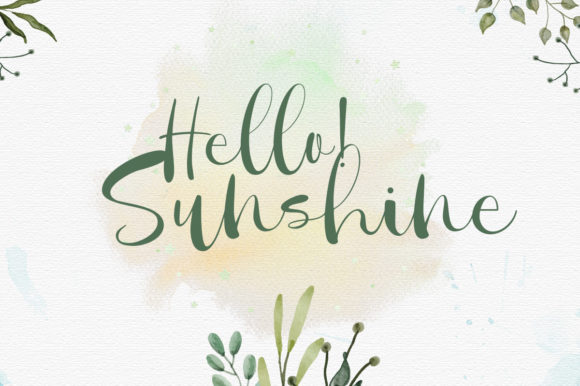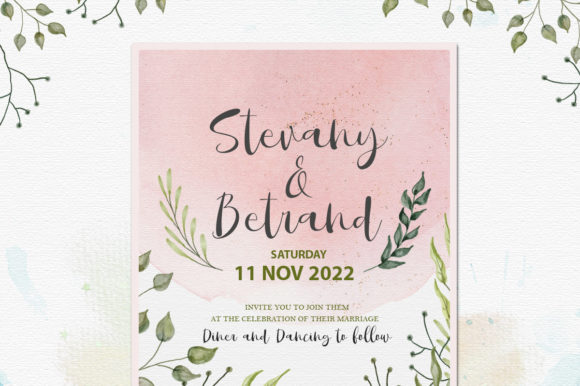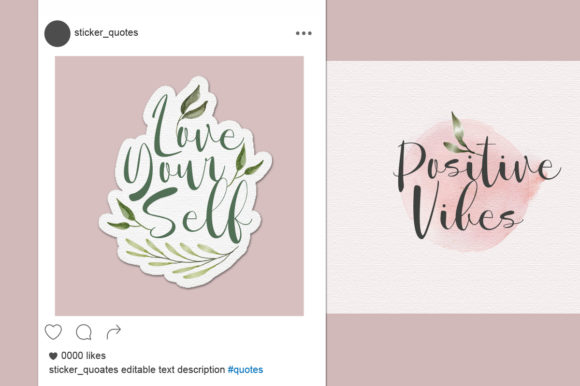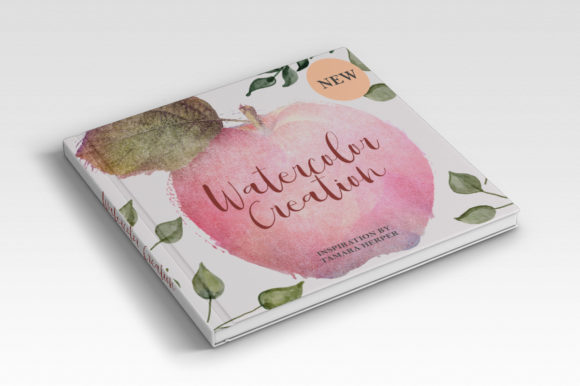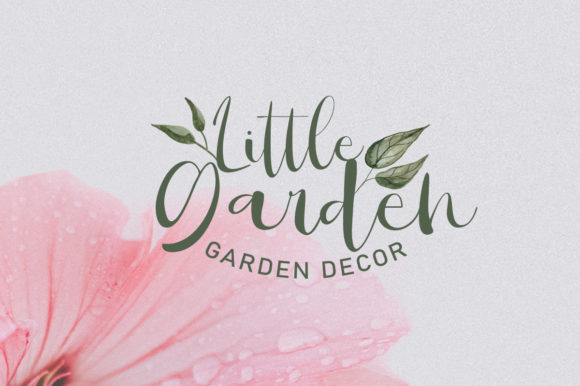
Introduction to Maritosca Script Font
Maritosca Script is an exquisite handwritten font, masterfully designed to become a true favorite.
Key Features of Maritosca Script Font
Why Choose Maritosca Script Font?
Maritosca Script Font offers exceptional quality and versatility, making it a valuable addition to your design toolkit. Whether you’re creating for personal projects or commercial use, Maritosca Script Font delivers professional results.